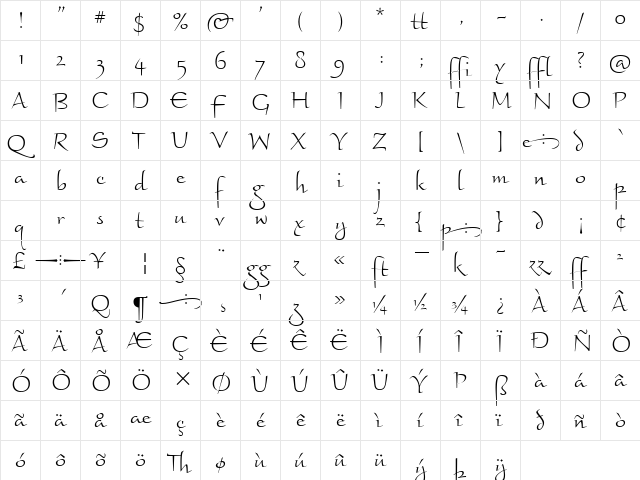
Braganza ITC Regular
| Foundry | International Typeface Corporation |
Design Context for Braganza ITC Typeface
Braganza ITC takes a measured approach to typography — its balanced proportions and neutral character make it a reliable workhorse for both digital and print work.